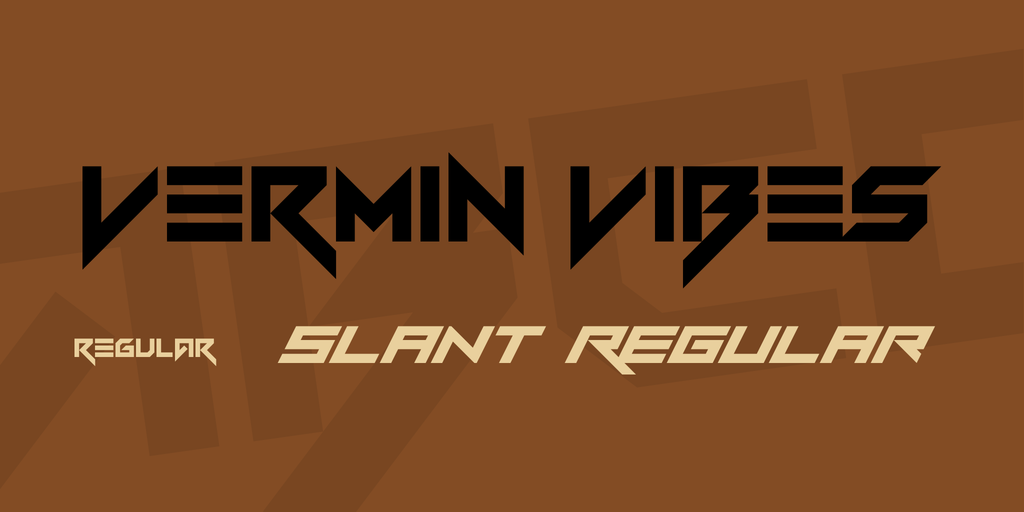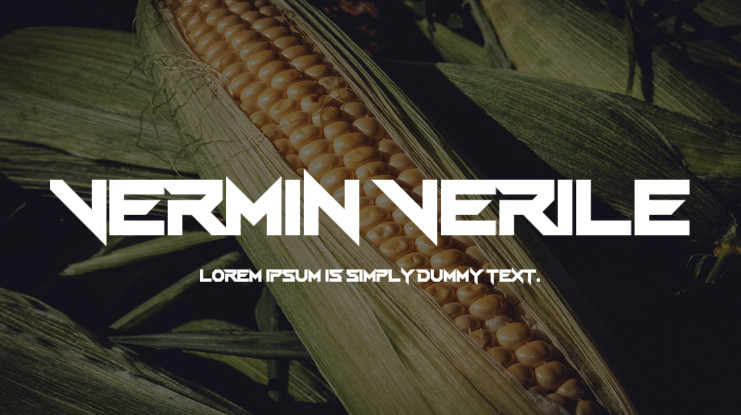
Vermin Verile Font
Vermin Verile Font falls into the category of extended fonts. This typeface is similar to sliced font and it is also present inside google fonts. It lets in the house domestic home windows ClearType text rendering tool, which wants to decorate textual content readability on liquid crystal show indicates. I assume you are a developer or font style fashion designer, consequently, you return to our net internet web page for buying that typeface.
Powerful patterns, amazing of completion like holiday creative script, and wonderful contemporary-day designs make in recent times. Download This unfastened net font is a sans serif with a low distinction and a tall x-pinnacle, skills that translate nicely onto the show. Its massive character set includes small caps, pictograms, and arrows. Just like gatsby art deco font, it offers an easy and in recent times arrives at your internet web page or blog.